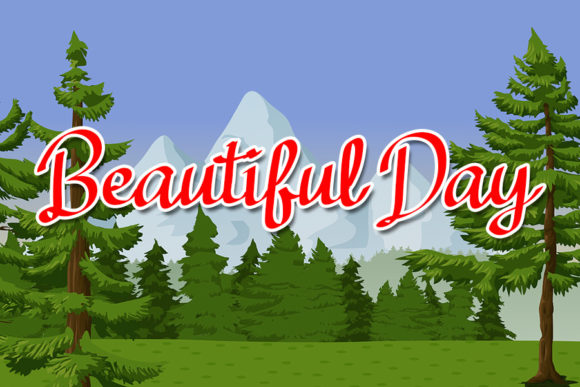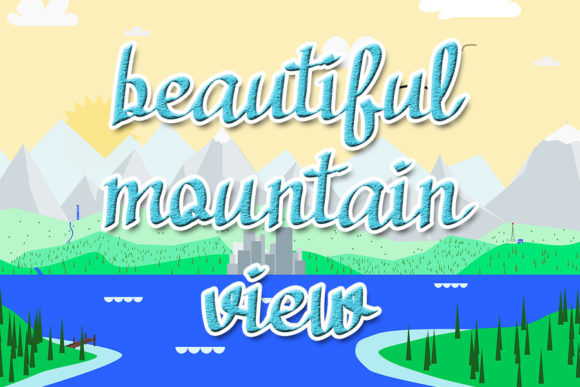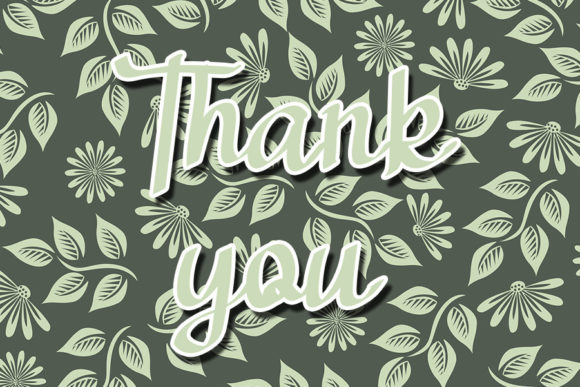
Introduction to Senelly Font
Do you remember the thrill of finally finding the perfect font for your creative project? The one that brings your design to life, elevating it to a whole new level? For designers, this moment is like striking gold, and it’s what makes the process of creating so rewarding. If you’re still searching for that special something, we’ve got you covered. Say hello to the Senelly Font, a delightful script font that’s sure to become your new best friend.
With its relaxed theme and lovely style, the Senelly Font is the perfect addition to any design library. Whether you’re working on a project with a transparent background or need a high-quality font for your next creative venture, this font has got you covered. And the best part? It’s available for free download, making it an accessible design resource for designers of all levels.
Key Features of Senelly Font
- Unique, modern design with a transparent background, making it perfect for digital use
- Supports a wide range of languages, making it a versatile design resource
- Designed to be highly legible, even at small font sizes
- Comes with a comprehensive character set, including uppercase and lowercase letters, numbers, and punctuation marks
Honest Review: Senelly Font
As a designer, I’m always on the lookout for high-quality design resources to elevate my creative projects. The Senelly Font has caught my attention, and I’m excited to share my honest review.
- ✨ Elegant and modern design: Senelly Font is perfect for those who want to add a touch of sophistication to their projects.
- ✨ Wide range of languages supported: This font supports multiple languages, making it a versatile choice for designers working on projects with diverse audiences.
- ✨ High-quality vector graphics: The font’s vector graphics ensure that it scales well, even at large sizes.
- ⚠️ Limited font styles: Senelly Font is available in a limited number of styles, which might not be suitable for designers who want a wider range of options.
- ⚠️ Not ideal for transparent background: Due to its design, Senelly Font might not be the best choice for projects that require a transparent background.
Overall, I’m impressed with the Senelly Font’s design and versatility. It’s a great addition to any designer’s toolkit, especially for those working on creative projects that require a touch of elegance. With its free download option, it’s definitely worth checking out.
Tips for Getting the Most Out of Senelly Font
To get the most out of the Senelly Font, use it in combination with other high-quality design elements. Experiment with different font sizes, colors, and arrangements to create unique and visually appealing designs.
The Senelly Font is perfect for a variety of creative projects, including logos, business cards, brochures, and presentations. Its high quality design and transparent background make it a versatile and valuable design resource.